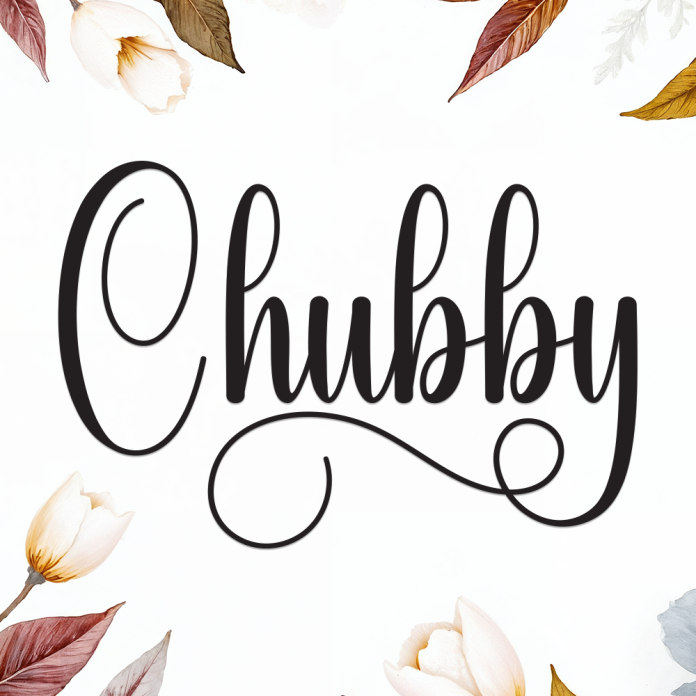
Chubby is a sweet and bubbly handwritten font full of charm and character. With its rounded strokes and playful flow, this font feels like a warm hug—perfect for fun, youthful, and heartwarming designs.
Whether you're designing for kids’ merchandise, cute packaging, social media posts, or personal branding, Chubby brings a joyful and approachable vibe to your creative work.
Bold and Rounded Handwritten Style
Fun, Friendly Letterforms
Add a dose of cuteness to your projects with Chubby!